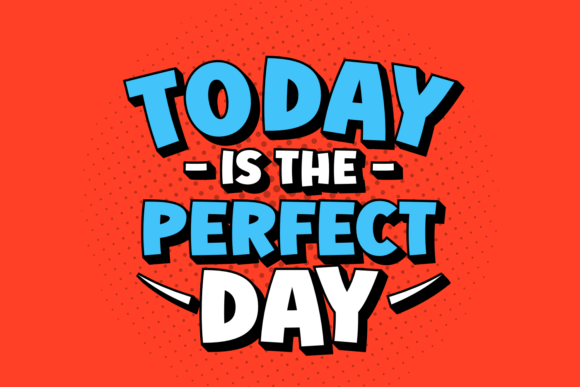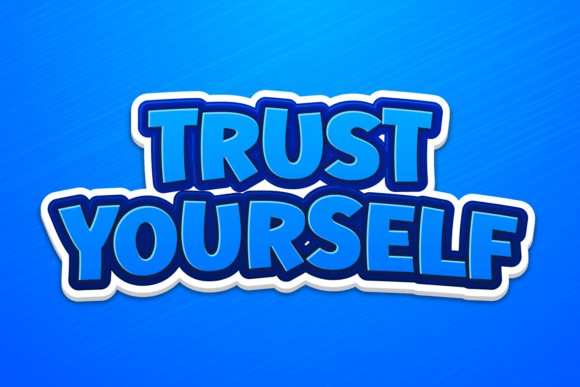
The Perfect Typography Partner: Hello Helden Font
Have you ever stared at a blank design project, struggling to find the perfect font to capture the essence of your idea? I know I have. But what if I told you that there’s a font that can turn your creations into showstoppers? Enter the Hello Helden Font, a thick and eye-catching display font that’s sure to grab attention.
Designed to make a statement, Hello Helden Font is the perfect choice for creating striking typography designs. Whether you’re working on a poster, book cover, or t-shirt design, this chunky set of characters is guaranteed to make your project stand out. For designers, Hello Helden Font is a valuable asset that can elevate your work and make it more memorable.
Hello Helden Font Key Features
- Unique Characteristics: This font features a distinctive, hand-drawn aesthetic with bold lines and dynamic letterforms, adding a touch of personality to any design project.
Hello Helden Font Review
I’ve had the chance to work with the Hello Helden Font, and I must say it’s a unique and eye-catching addition to any design project. ✨ The font’s bold and geometric style lends itself well to creating a sense of drama and energy, making it perfect for headings and titles.
- ✨ The font’s versatility is a major plus – it works well for a wide range of projects, from modern and edgy to retro-futuristic.
- ✨ The font’s bold weights and distinctive letterforms make it easy to read and understand, even at smaller sizes.
However, there are some limitations to consider: ⚠️ The font’s more delicate features can be lost when used at very small sizes, which may affect readability.
- ⚠️ The font may not be the best choice for projects that require a more subtle or minimalist aesthetic.
- ⚠️ Some users may find the font’s geometric style a bit too aggressive or overwhelming.
Overall, I think the Hello Helden Font is a great addition to any designer’s toolkit, but it’s essential to use it judiciously and consider the project’s tone and style before making a decision.
Hello Helden Font is ideal for:
1. Creative typography and text effects.
2. Branding and logo design.
3. Editorial and publishing design.
4. Wedding invitations and stationery.